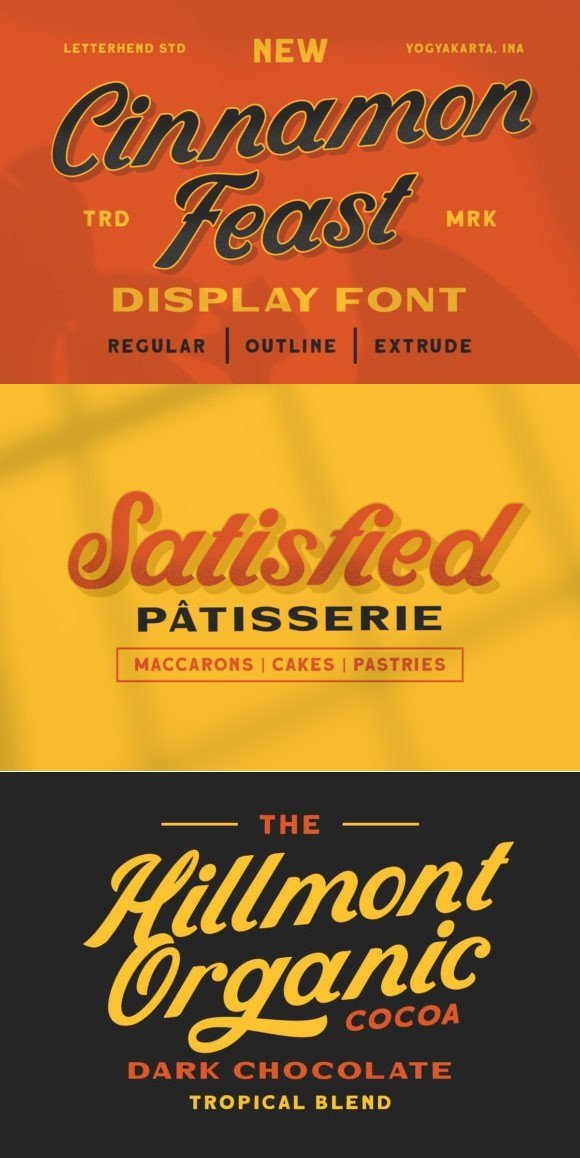
CF - Cinnamon Feast Font 93145317
Cinnamon Feast captures the essence of vintage charm with its stylish script design. Reminiscent of old-fashioned signage and retro branding, this font adds a nostalgic touch to any project. With its elegant curves and timeless appeal, it’s perfect for vintage-inspired logos, packaging, and decorative elements.